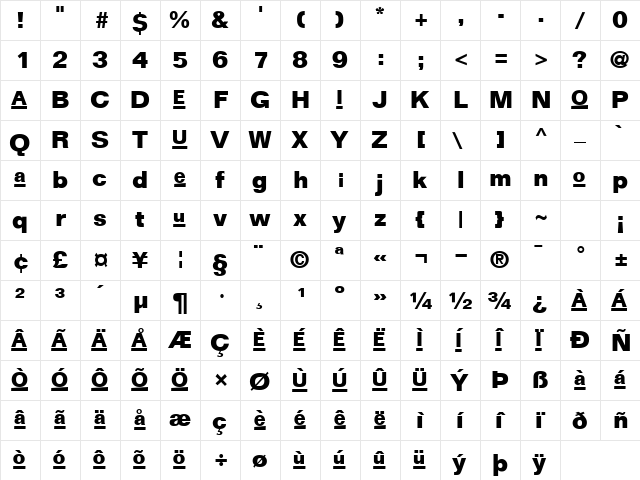
Master Regular
Design Context for Master Typeface
Master takes a measured approach to typography — its balanced proportions and neutral character make it a reliable workhorse for both digital and print work.
Pro Tip: Use Master in both headline and body roles to test its range before committing to a single application.